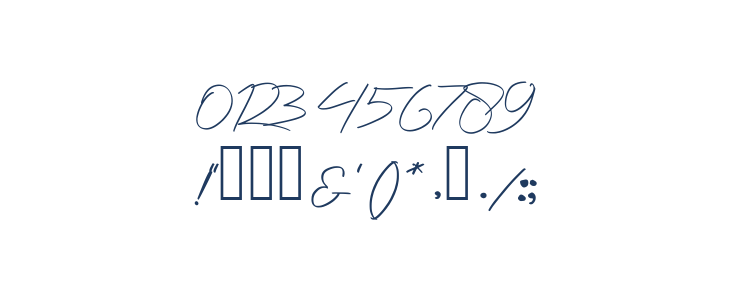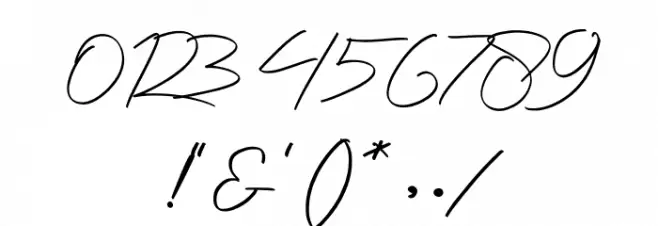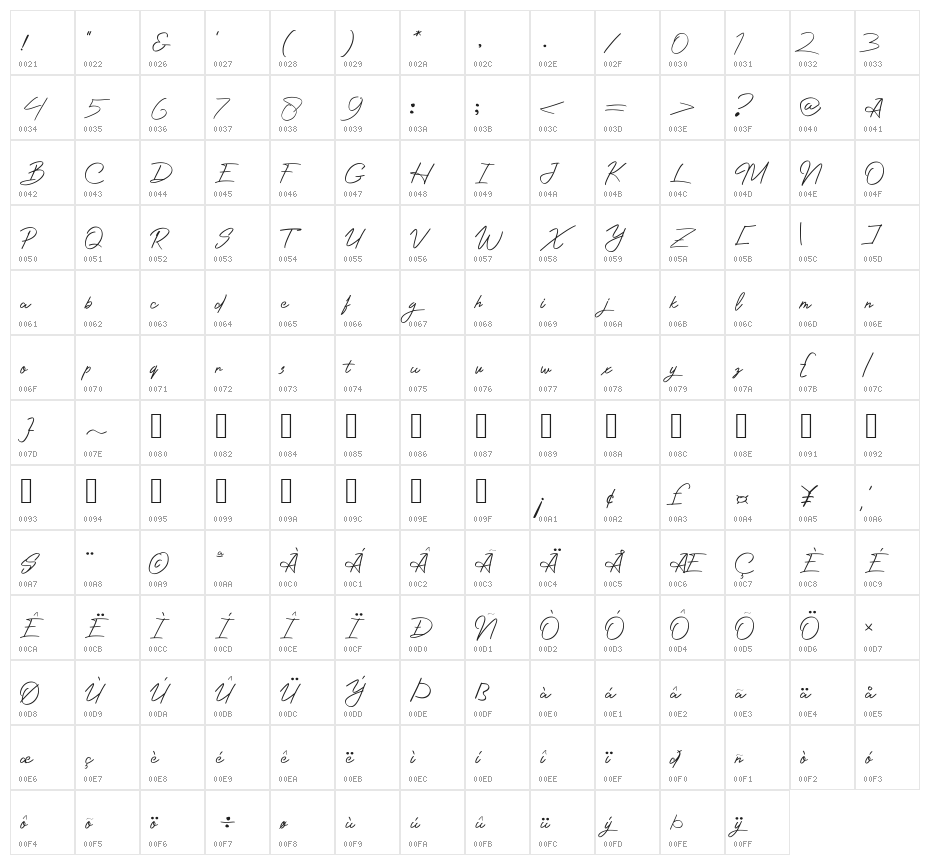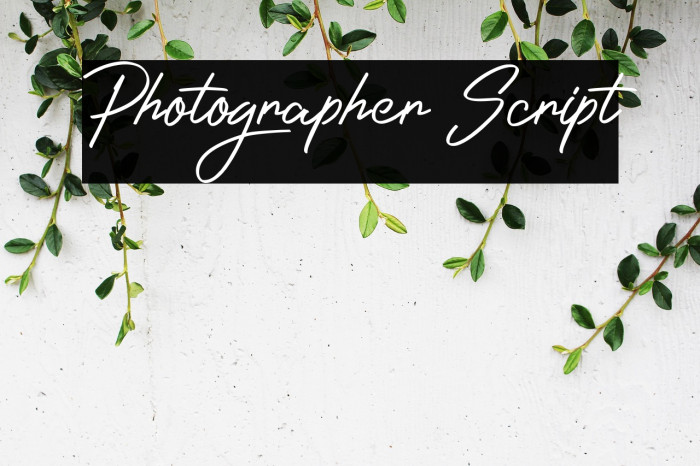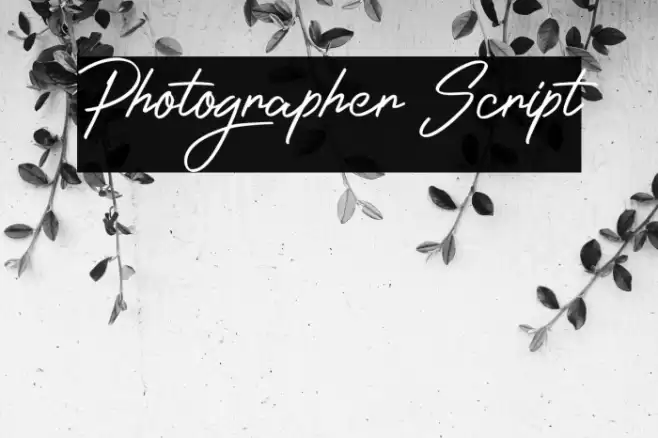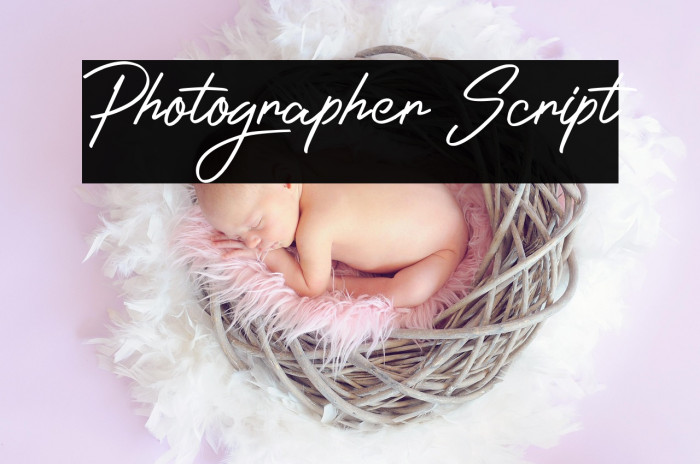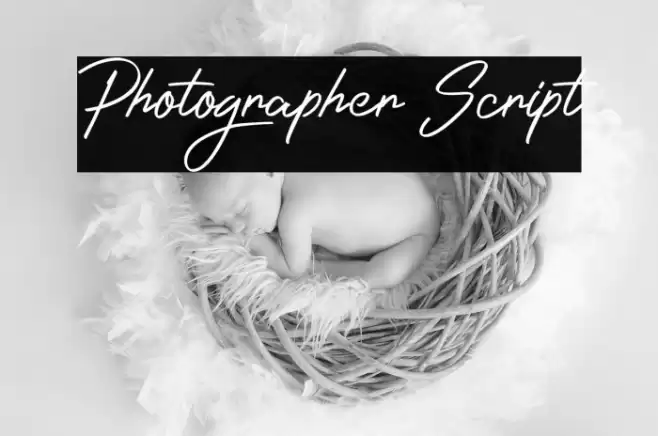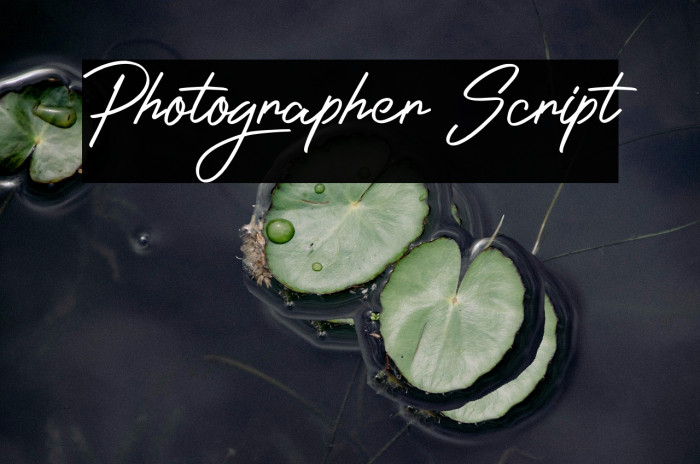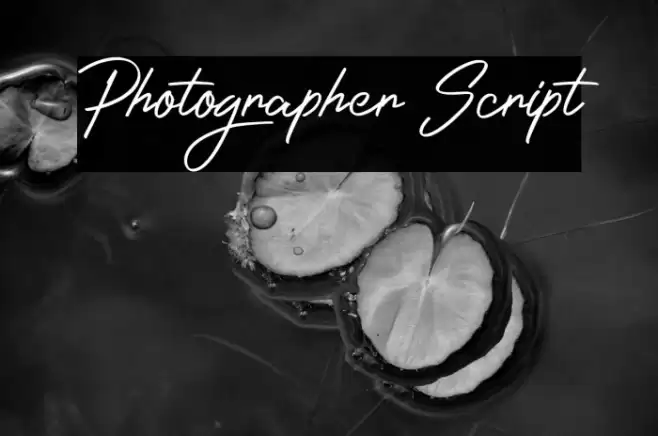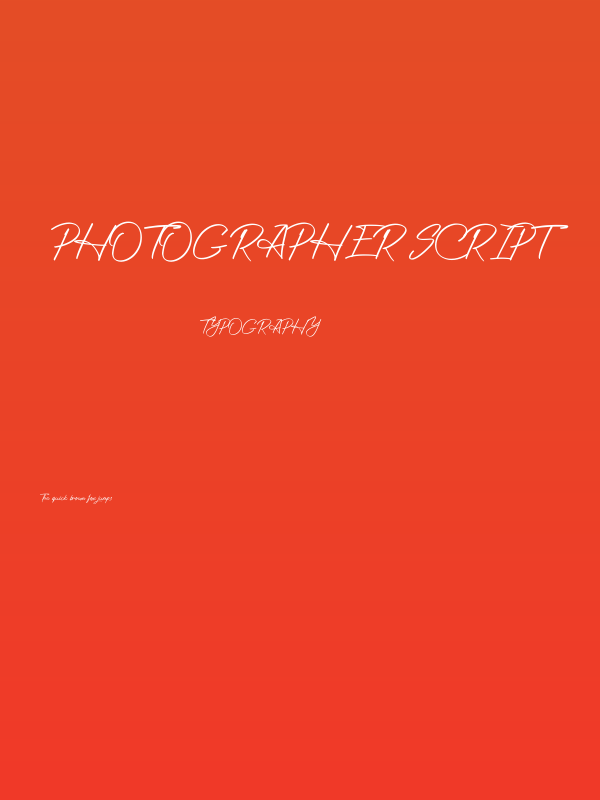
Photographer Script Font
Photographer Script Description
This elegant script font features a fluid and graceful design, reminiscent of traditional handwriting with a modern twist. The characters are connected with smooth, flowing lines, creating a sense of movement and sophistication. The uppercase letters are slightly more elaborate, with extended strokes and loops, while the lowercase letters maintain a consistent, cursive style. The numerals and special characters are designed to complement the overall aesthetic, ensuring a cohesive look across all text. This font exudes a sense of elegance and refinement, making it ideal for projects that require a personal touch.
Overall StyleElegant, Modern
Use CaseLogos, Invitations, Personal branding
Proposed ProjectsIdeal for wedding invitations, personal branding, elegant logos, and greeting cards.